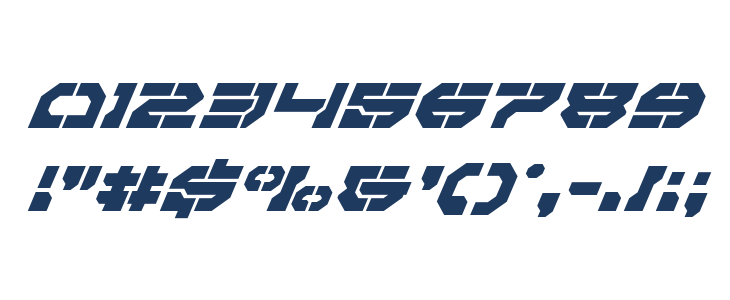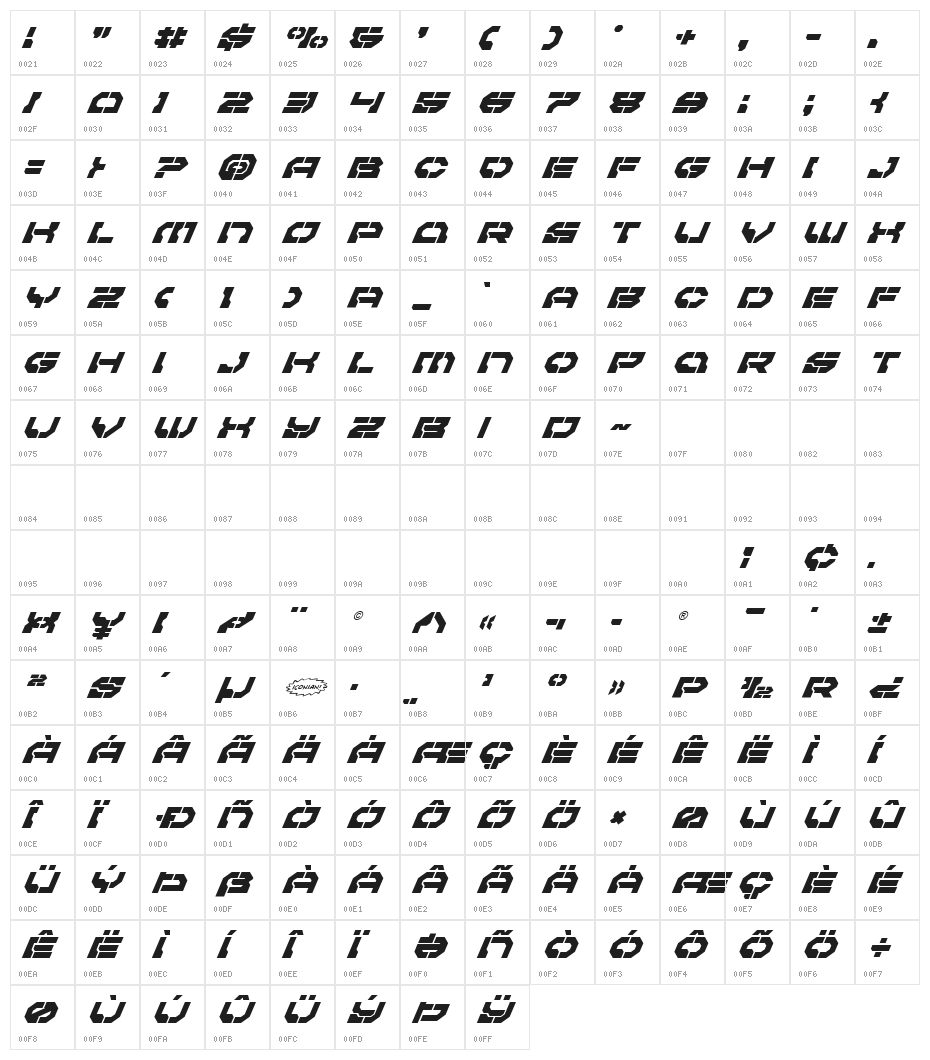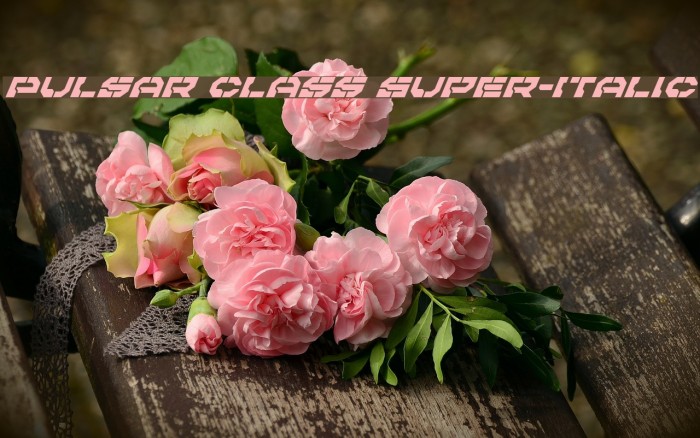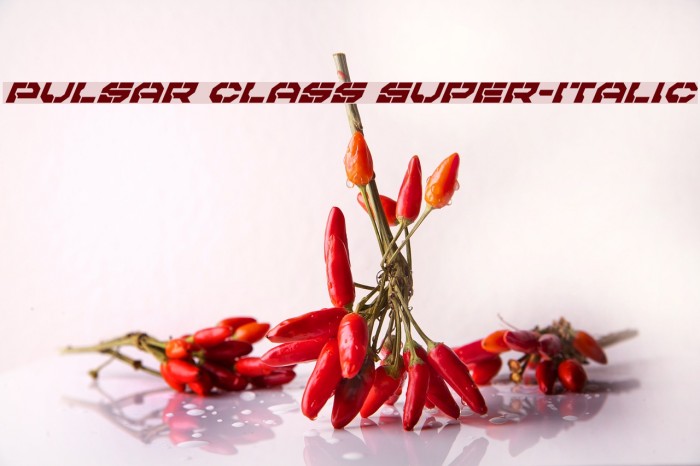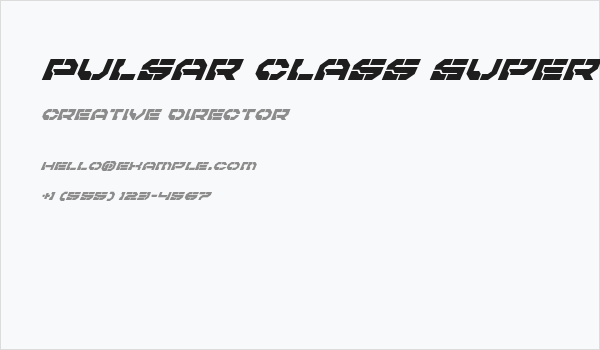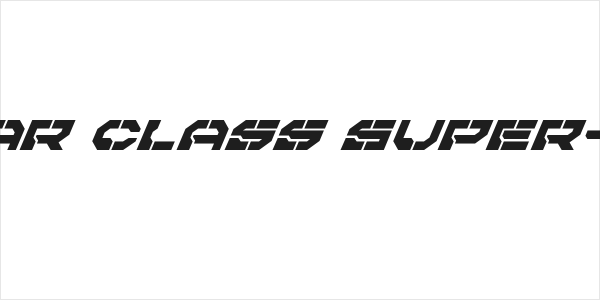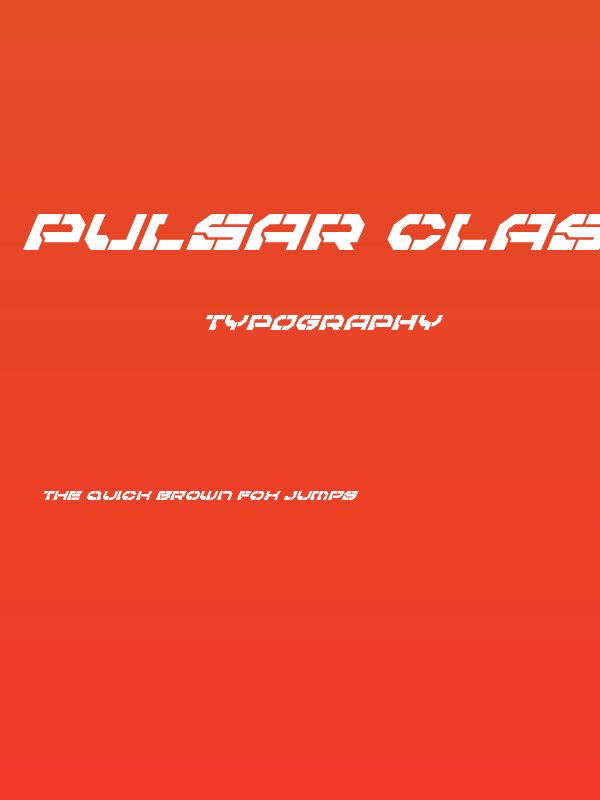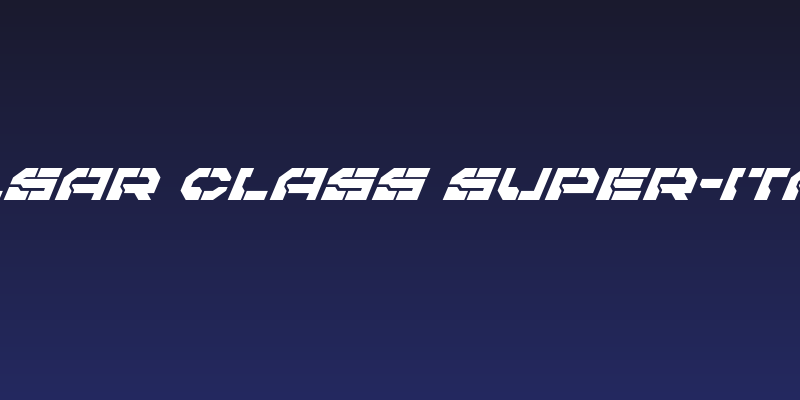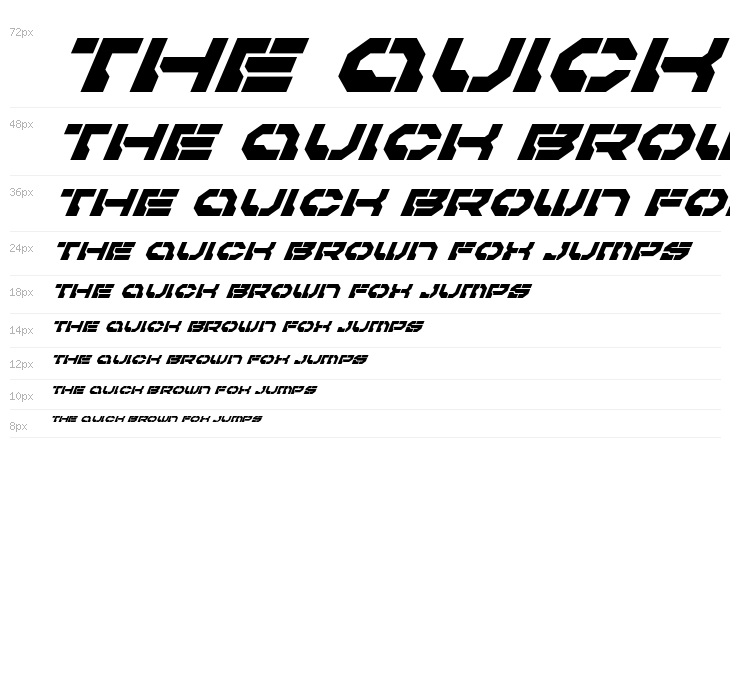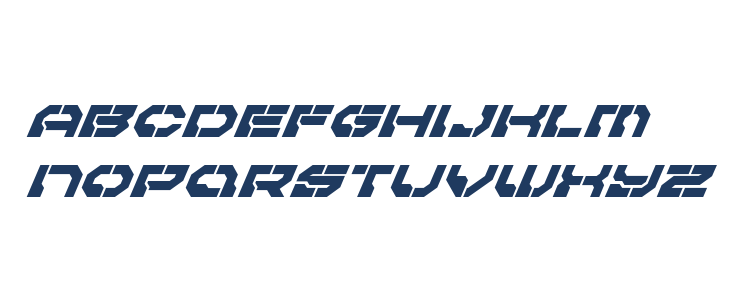
Pulsar Class Super-Italic Font
Pulsar Class Super-Italic Description
This font features a futuristic and angular design, characterized by sharp edges and a dynamic slant. The letters are bold and geometric, giving a sense of speed and modernity. The uppercase and lowercase letters maintain a consistent style, with the lowercase mirroring the uppercase in form. Numbers and special characters follow the same angular and bold aesthetic, ensuring uniformity across all glyphs. The font's unique style makes it stand out, suitable for projects that require a modern and edgy look.
| Proposed Projects | Ideal for sci-fi themed designs, video game titles, technology branding, and futuristic posters. |